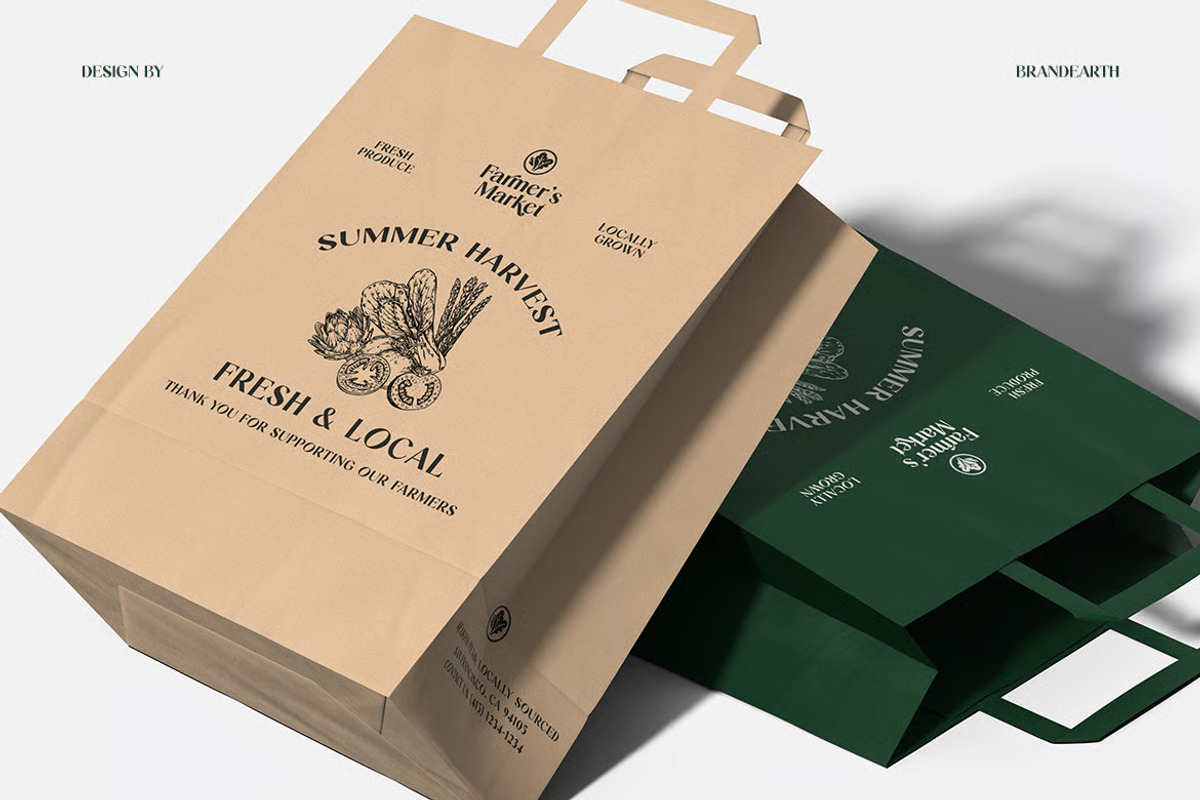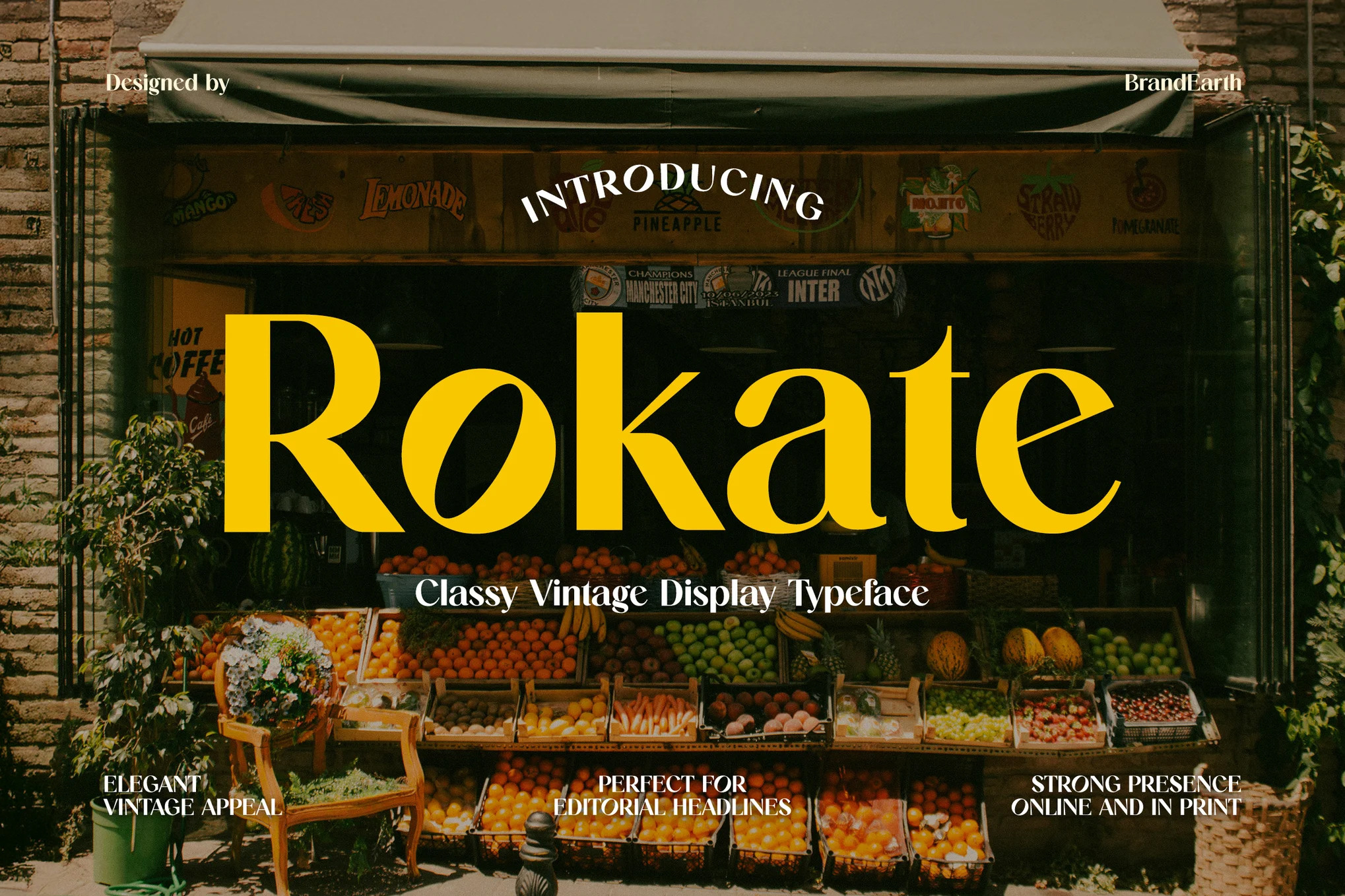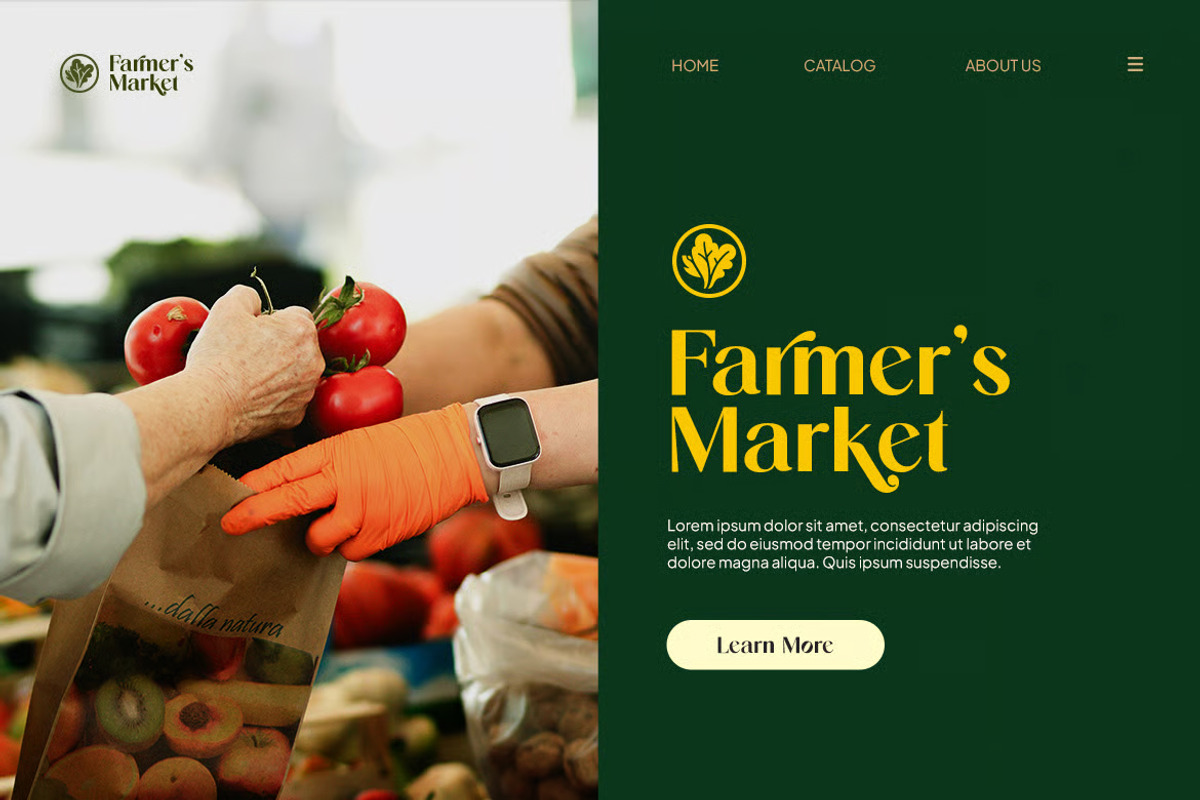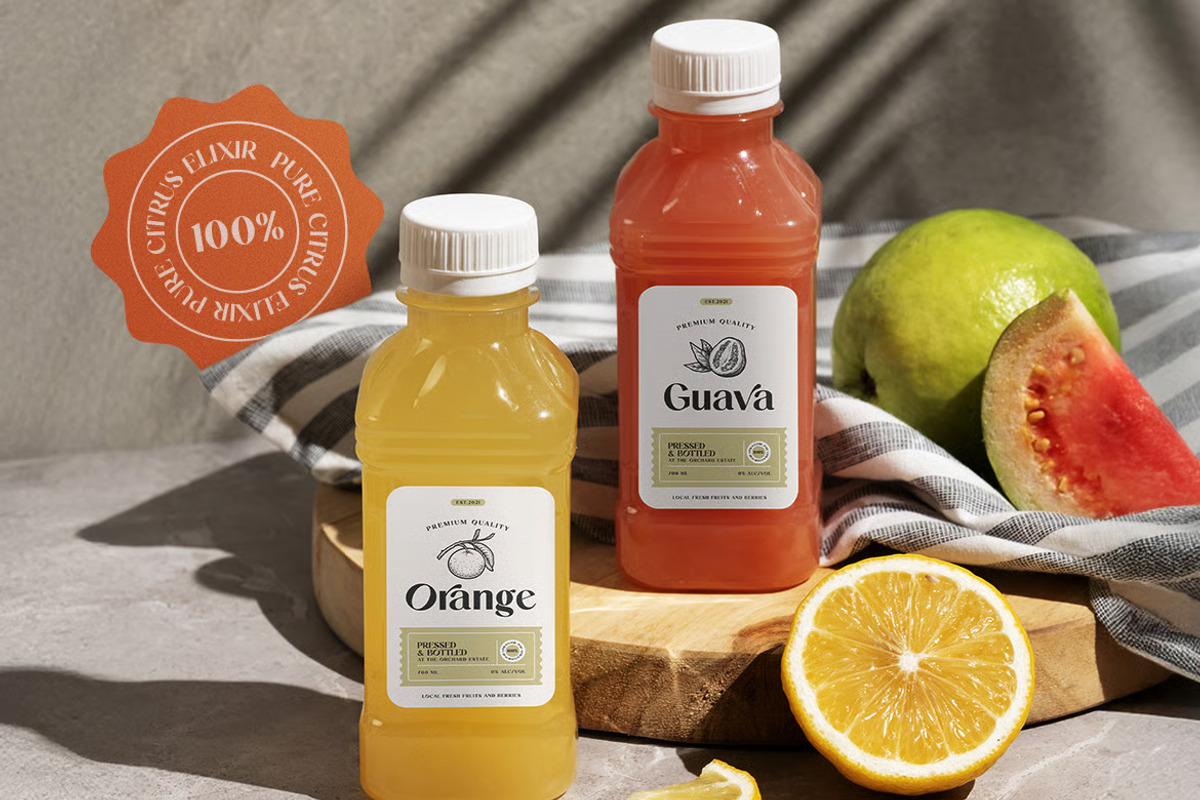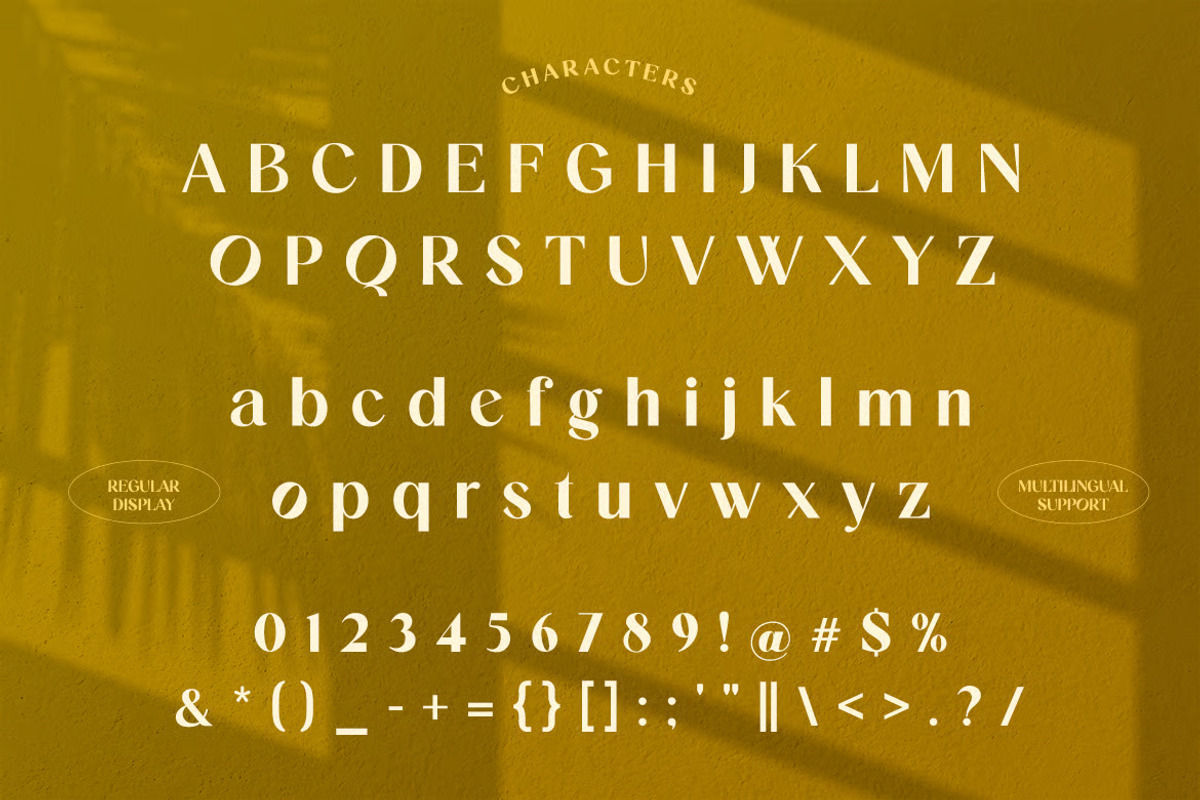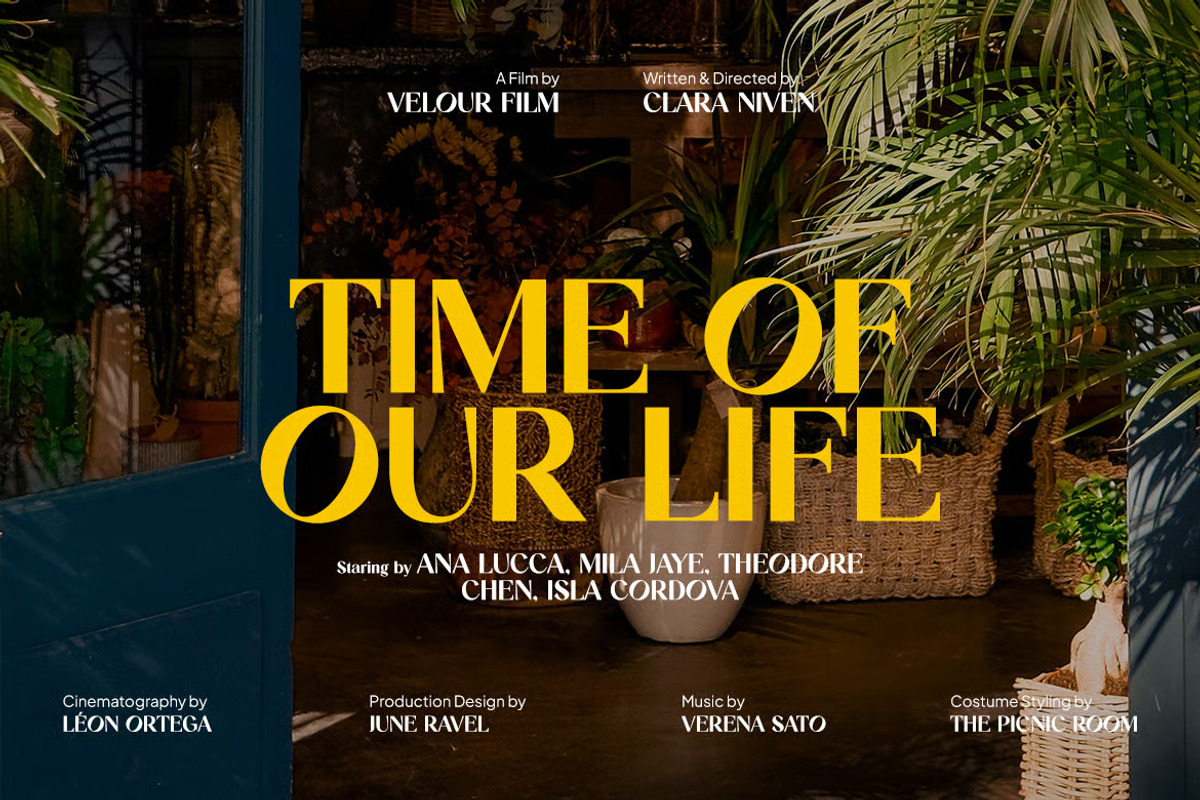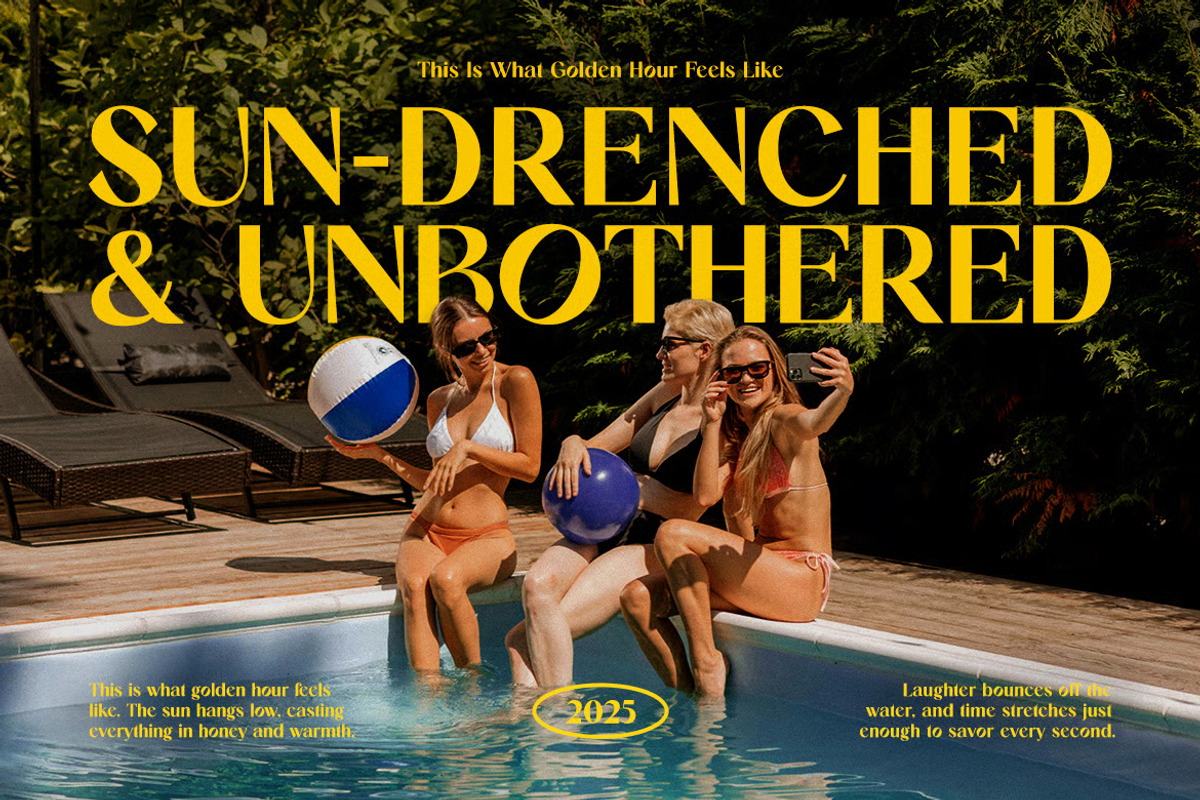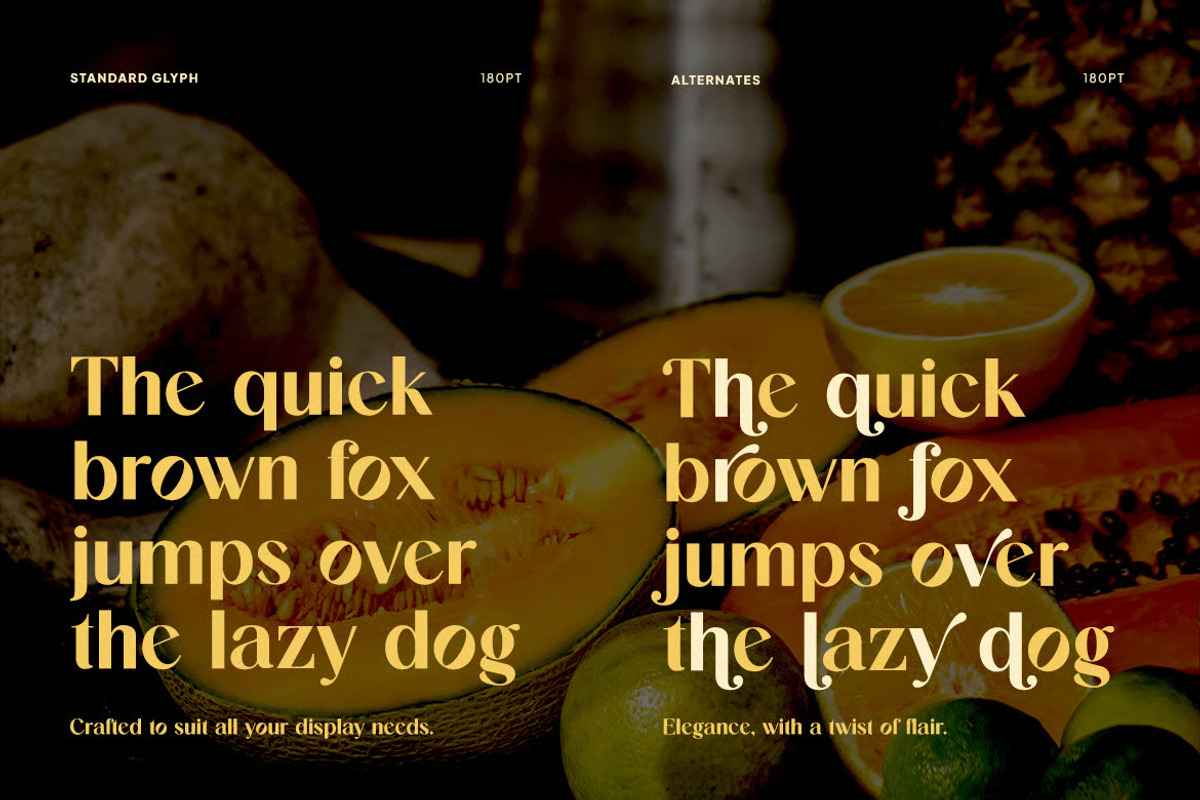
Rokate - Classy Vintage Serif Font
Rokate is a classy vintage serif typeface designed to elevate branding with a natural and timeless touch. With its elegant letterforms and traditional charm, Rokate is ideal for organic product packaging, farmers market branding, upscale labels, and boutique logos. Its refined yet approachable character blends perfectly with both rustic and modern aesthetics, delivering visual appeal across a range of design projects.
The letterforms in Rokate are built with elegant serif details and traditional proportions, creating a timeless rhythm that gives the typeface its classy, natural character. It features a refined display quality that's perfect for organic branding, farmers market labels, and boutique packaging design.
With its vintage charm and approachable elegance, Rokate bridges the gap between rustic warmth and modern sophistication. It delivers a natural, trustworthy feel while remaining highly legible, making it ideal for heritage branding, artisanal packaging, and farm-to-table promotion.
Main Features
Ligatures & Alternate
Numeral & Punctuations
Suitable For: organic branding, juice packaging, farmers market, product labels, vintage logo design, eco-friendly design, food branding, café signage, elegant tags, modern rustic style, boutique identity, handcrafted goods, restaurant menus, heritage branding, grocery design, artisanal products, market stall branding, sustainable branding, farm-to-table promotion, classic packaging.